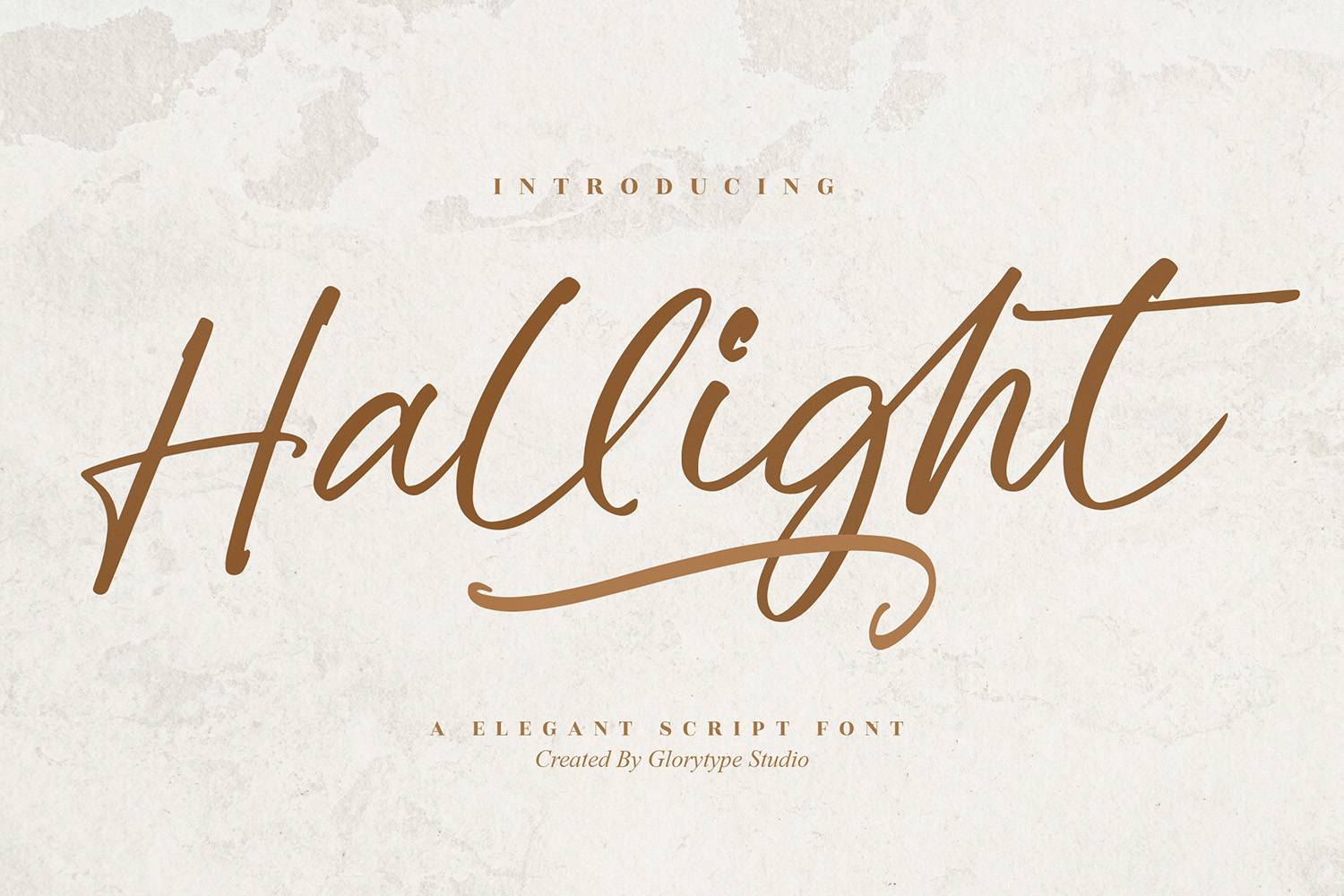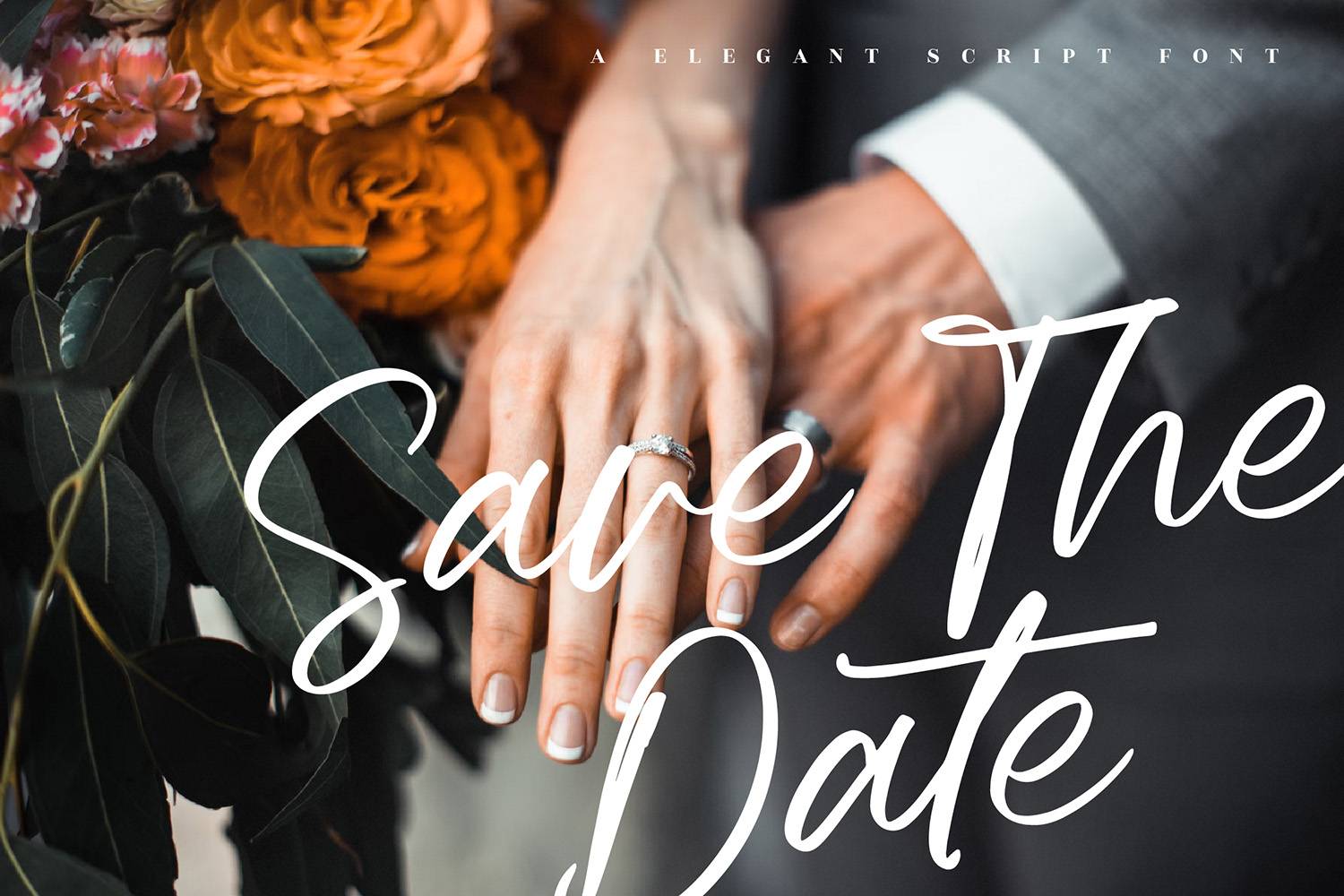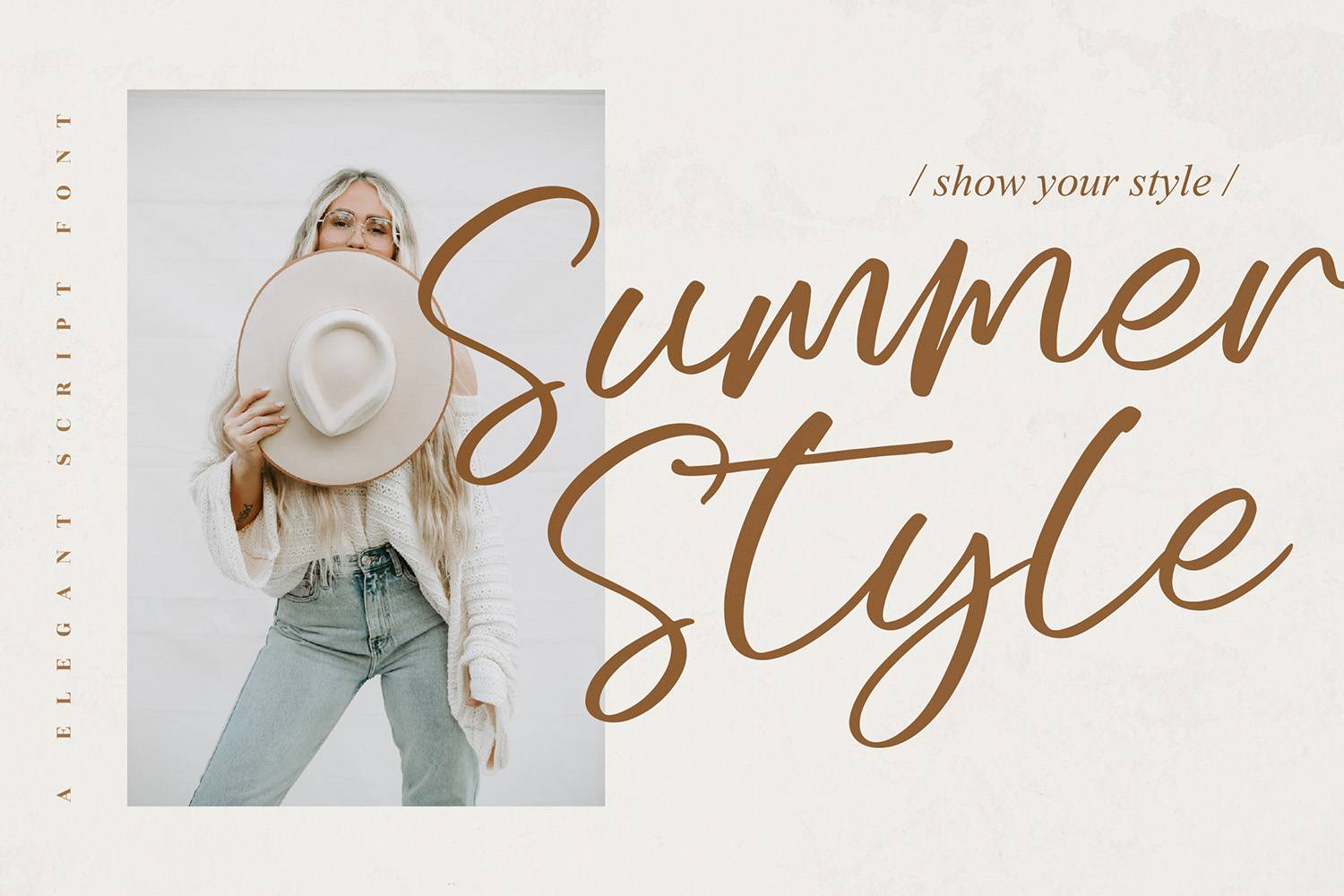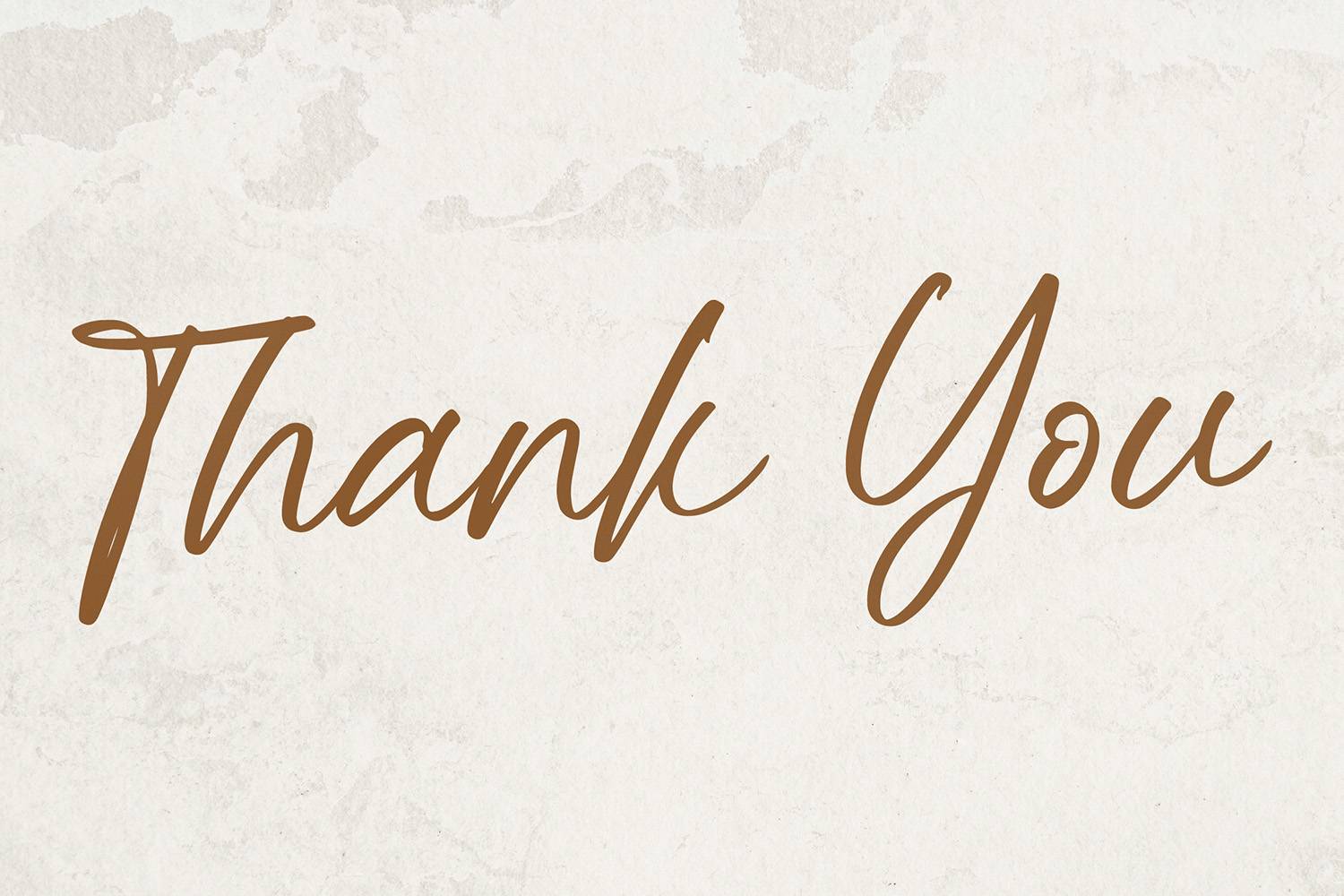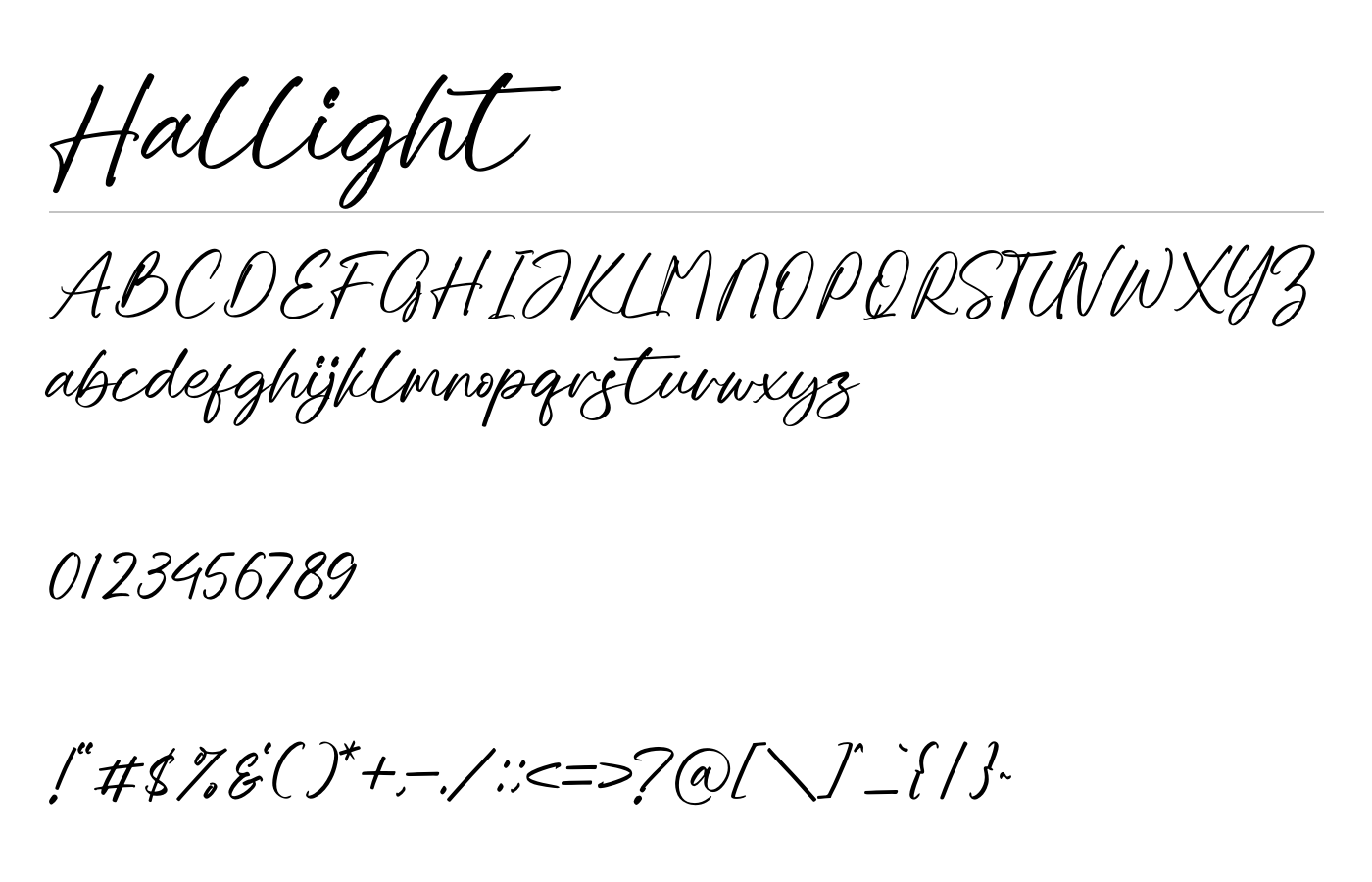
Hallight is a graceful script font with a light, flowing stroke that mimics natural handwriting. Its elegant, slightly slanted letterforms and smooth curves give it a personal, inviting feel, making it ideal for wedding invitations, branding, and creative projects that seek a warm, sophisticated touch. This font works best for headlines and decorative text where a stylish, handcrafted look is desired.
Hallight Font
About Hallight Font